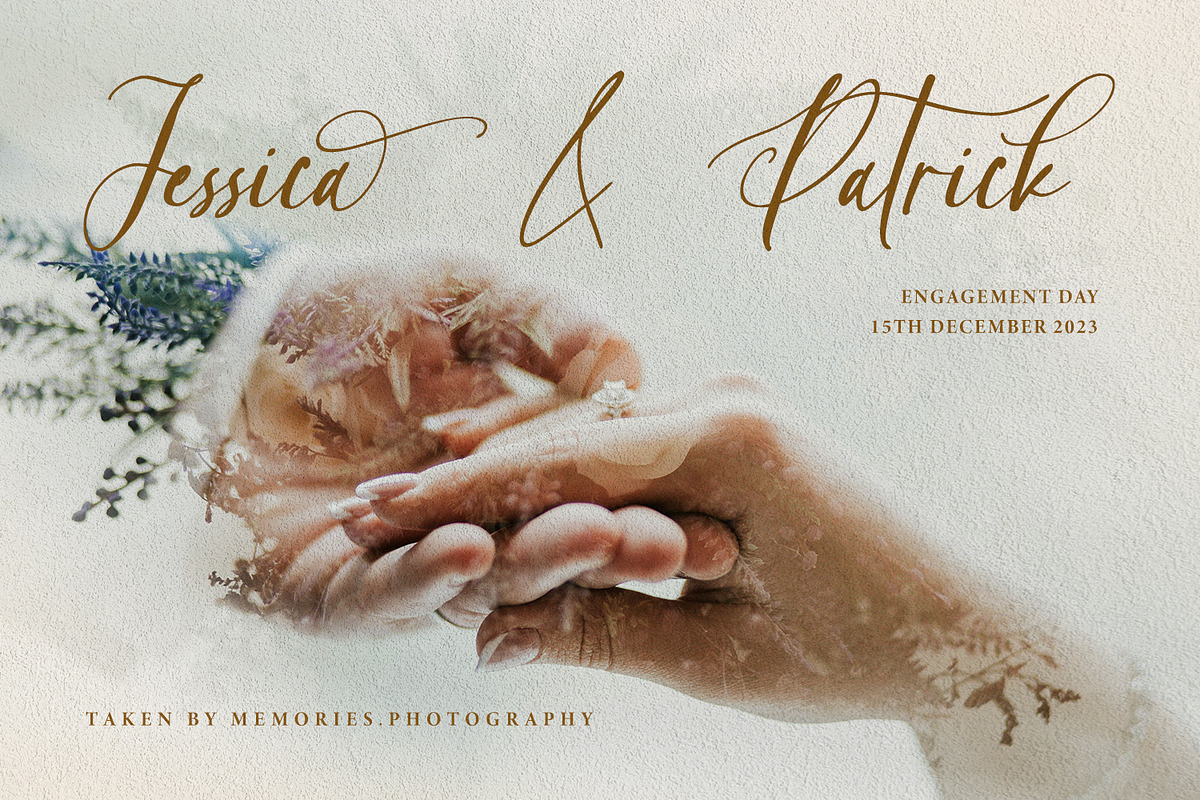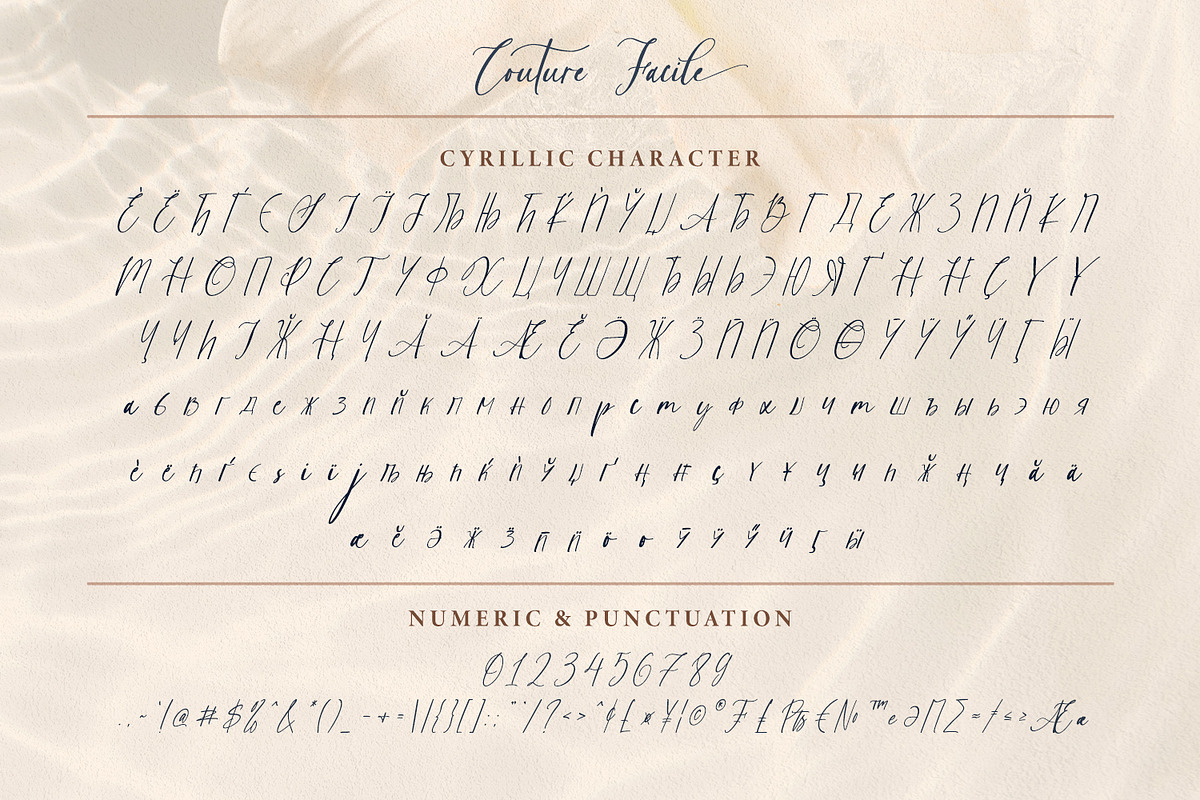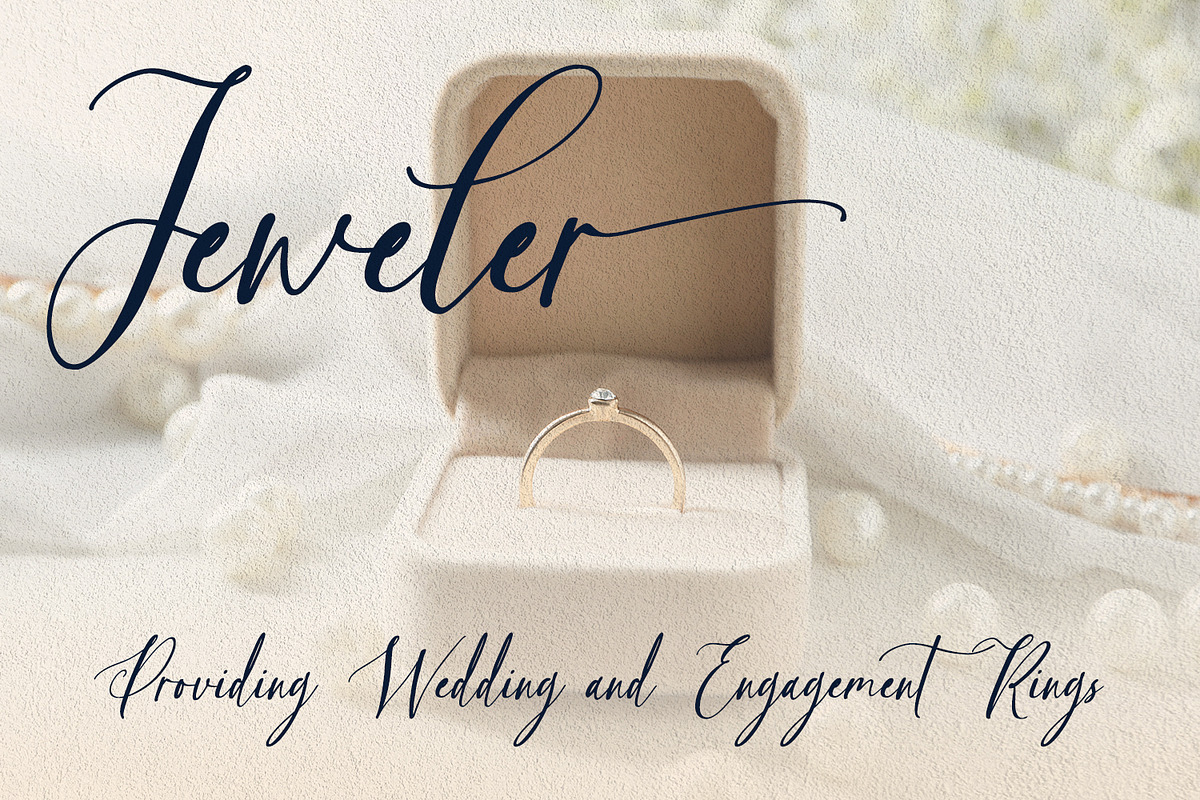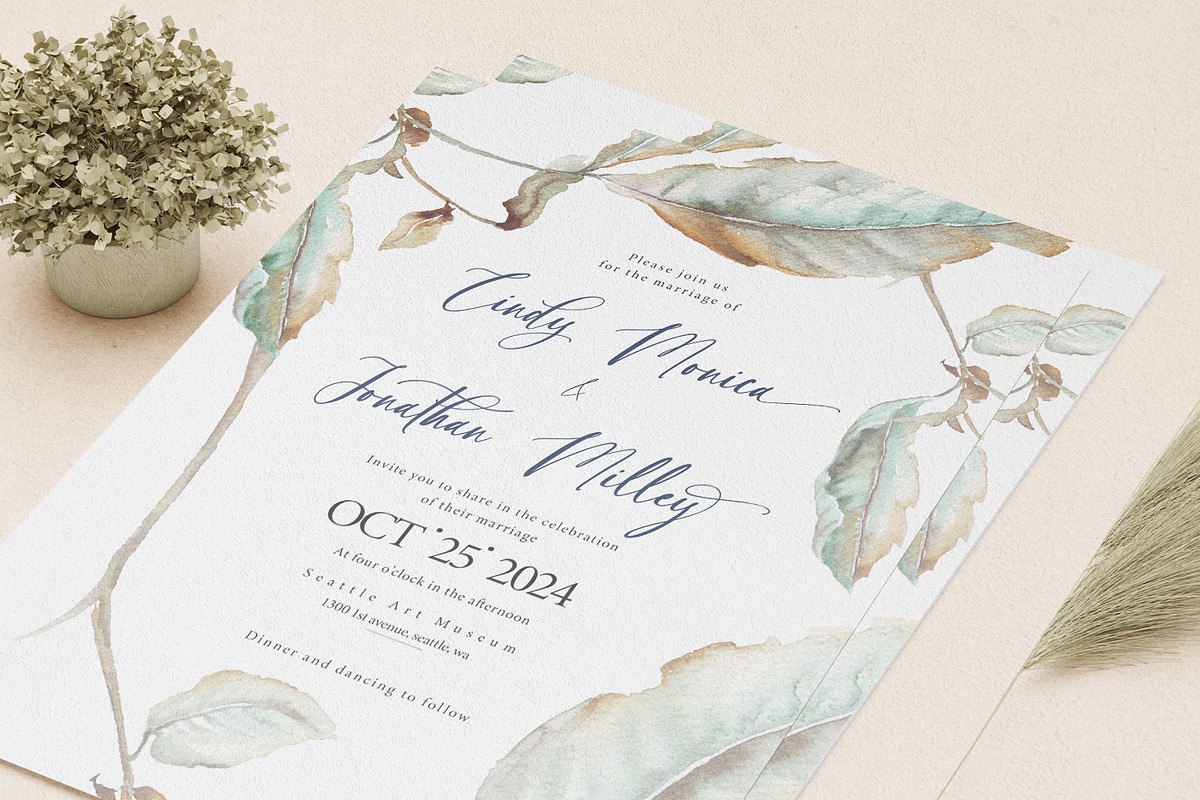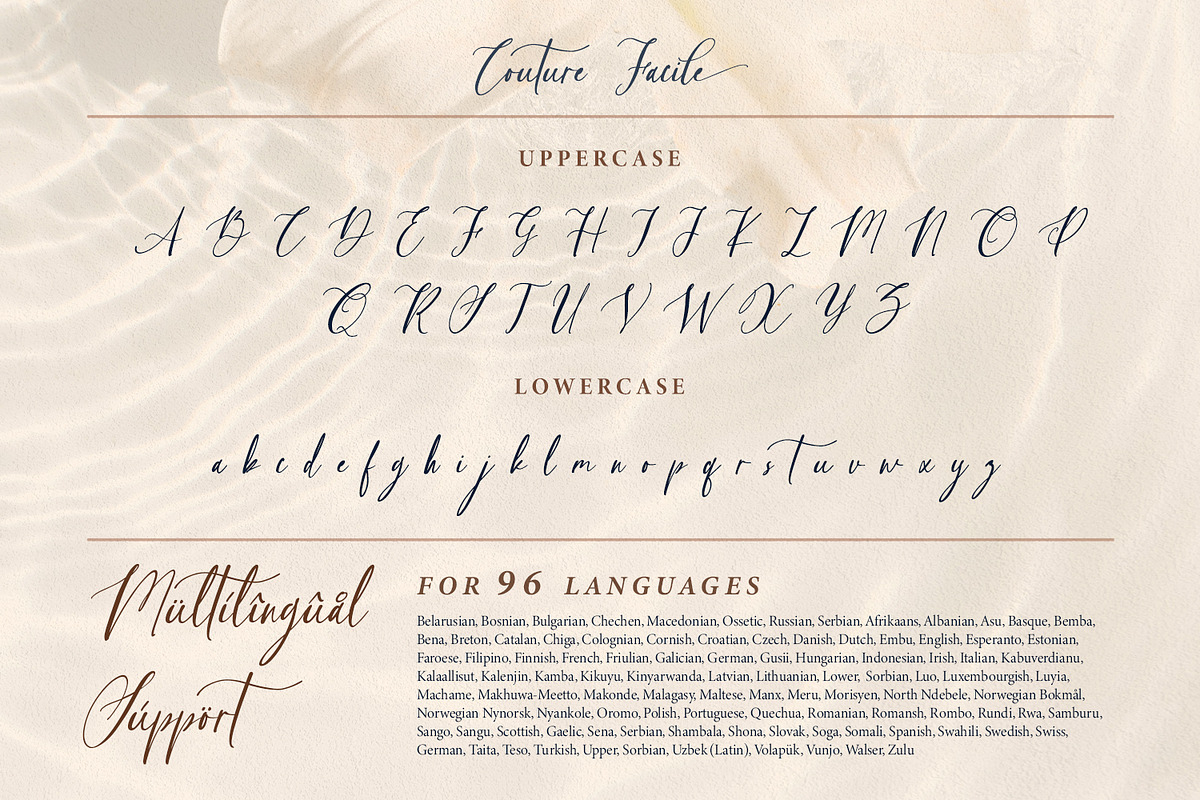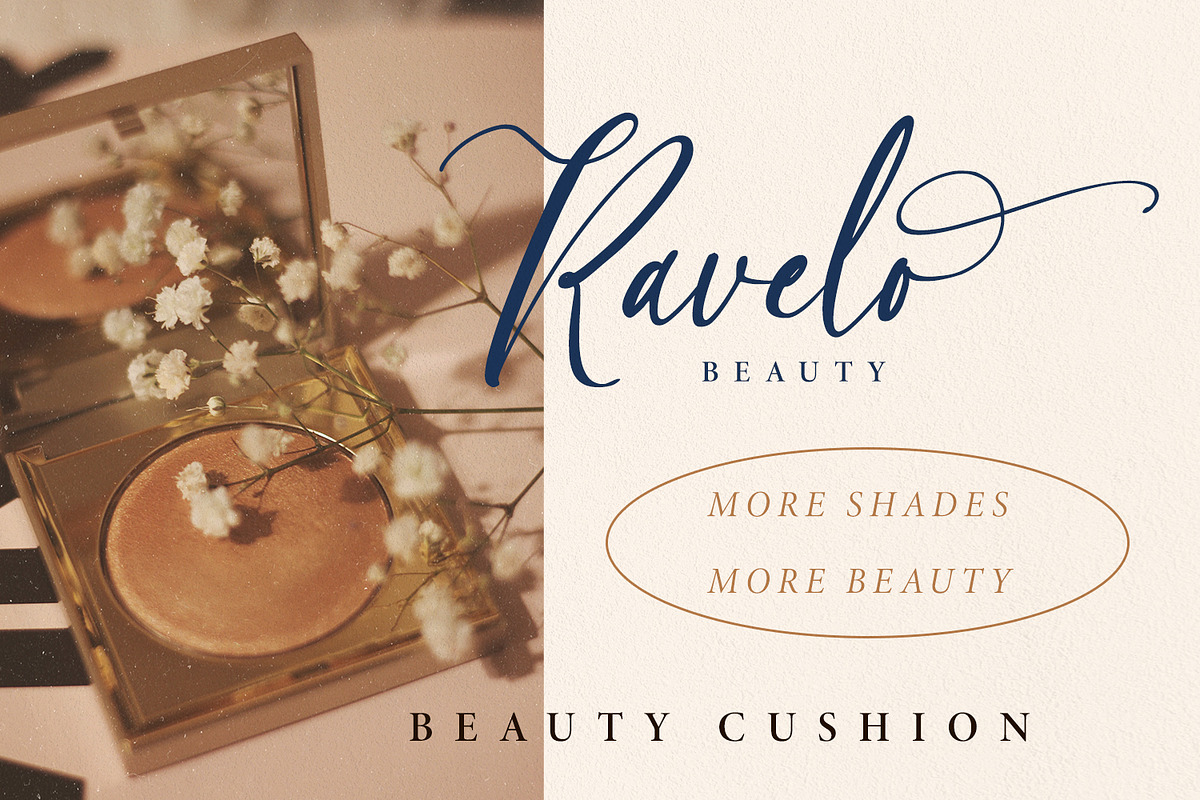
Couture Facile
Adding some beauty touches and perfect, unique styles to your designs, without which your designs will be incomplete and ignored, may be tough work and time-consuming. Therefore, Couture Facile is here to help you.
Couture Facile is a handwriting-like script font to add combinations of beauty and styles to your designs properly. Its dissimilar, more natural shapes looking spontaneously written are the font’s main characters. In addition, its letters’ details show high contrasts in curvy, sharp scratches on the letters’ edges. Couture Facile shows personal, elegant, creative impressions to the designs and is suitable to apply for either big or small text sizes due to its great legibility. You can also enjoy the available features here.
- Stylistic Sets
Couture Facile fits best for various design projects, such as brandings, headings, magazine covers, quotes, invitations, greeting cards, printed products, merchandise, social media, etc. Find out more ways to use this font by taking a look at the font preview.